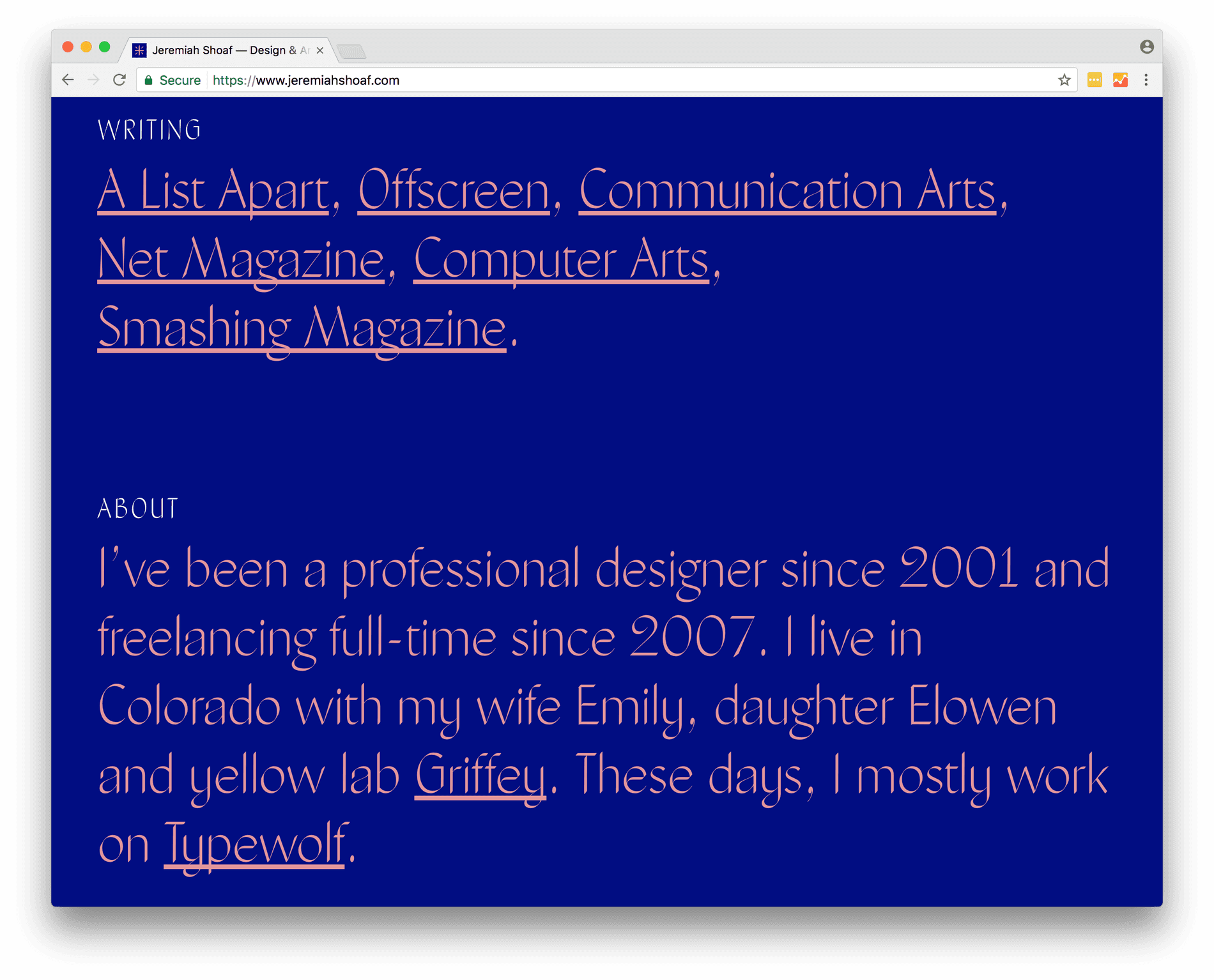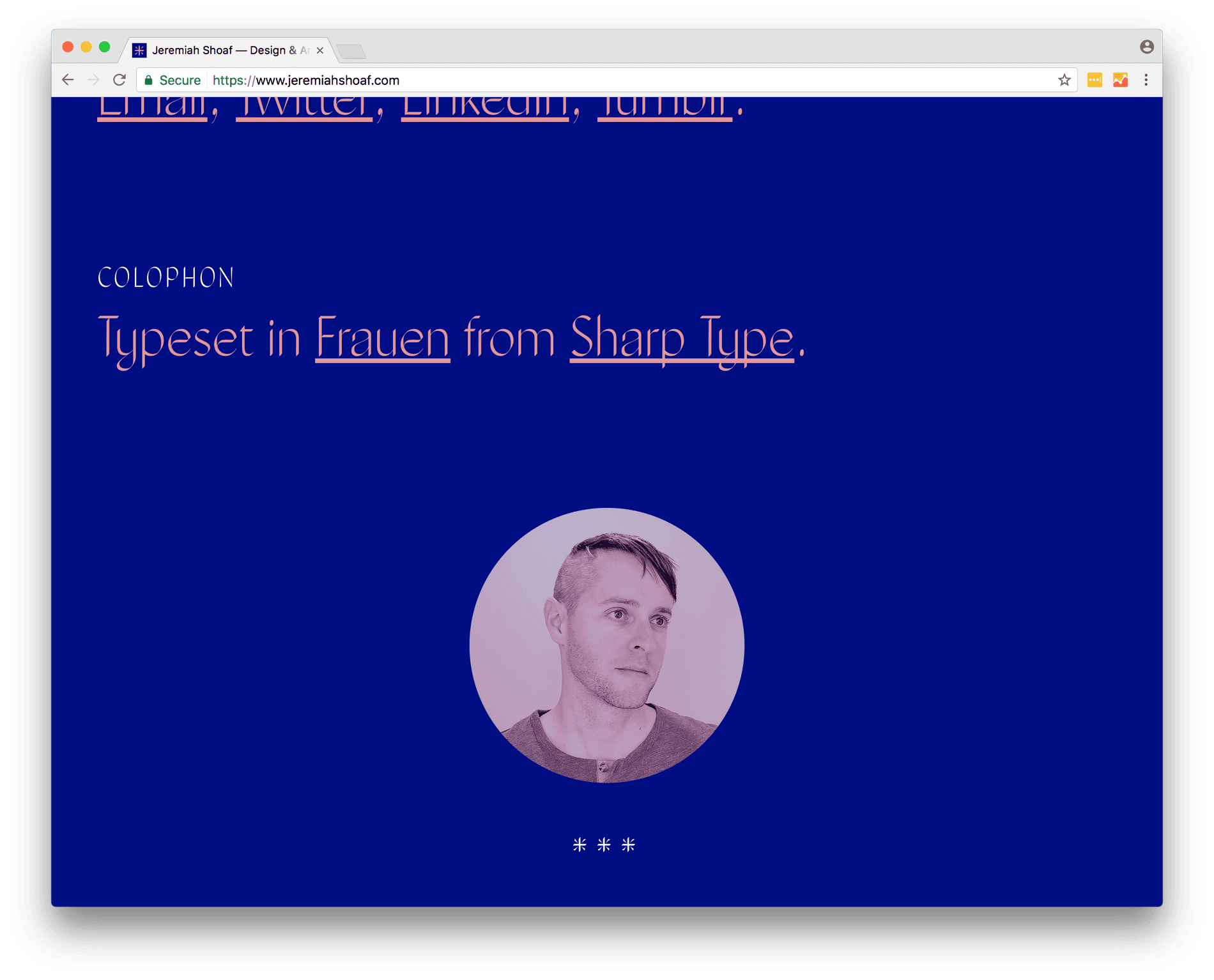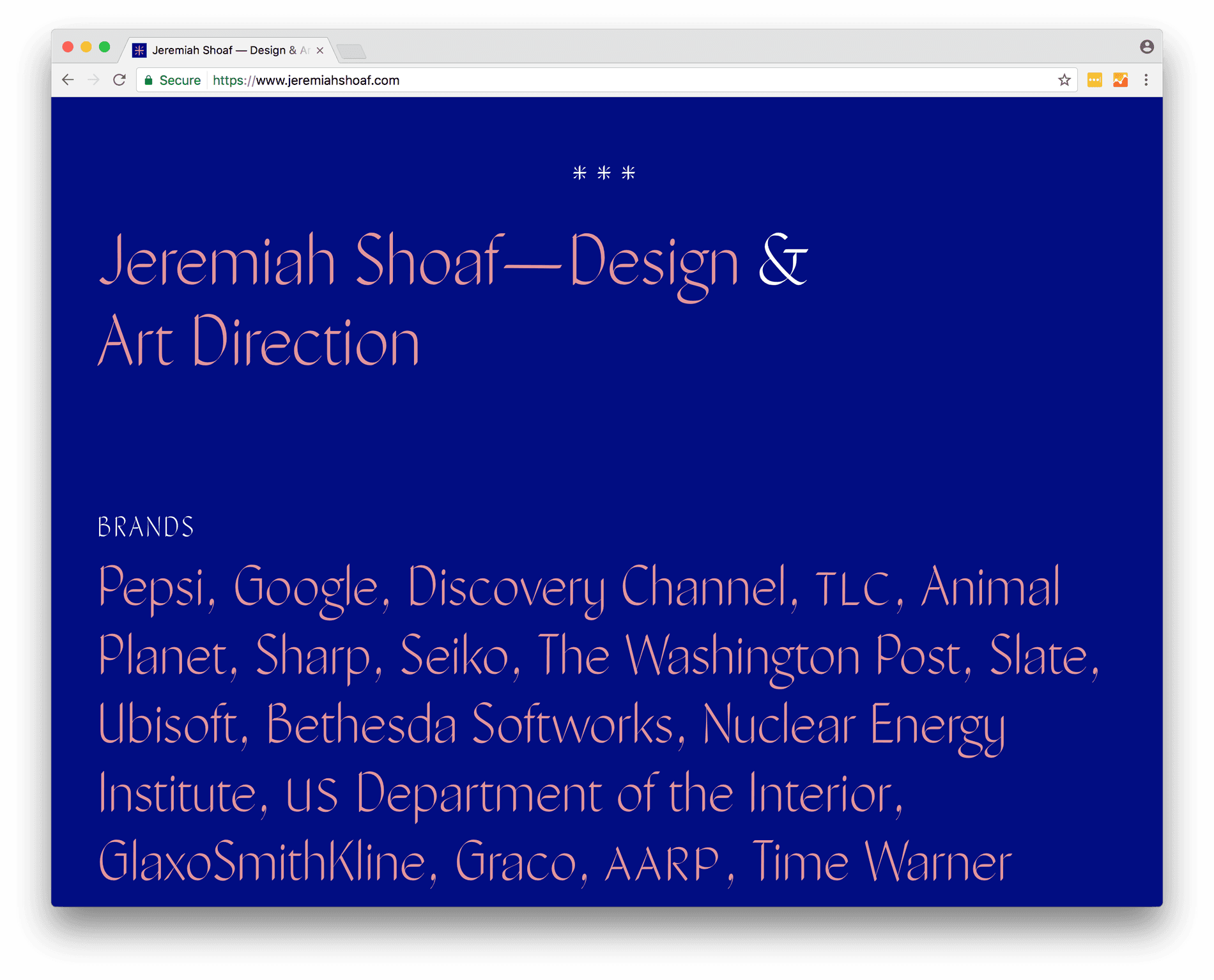
Jeremiah Shoaf, founder of type blog Typewolf, is using Frauen as his primary typeface for his personal website. The large type size and contrasting color palette really make Frauen pop.Designer: Jeremiah Shoaf